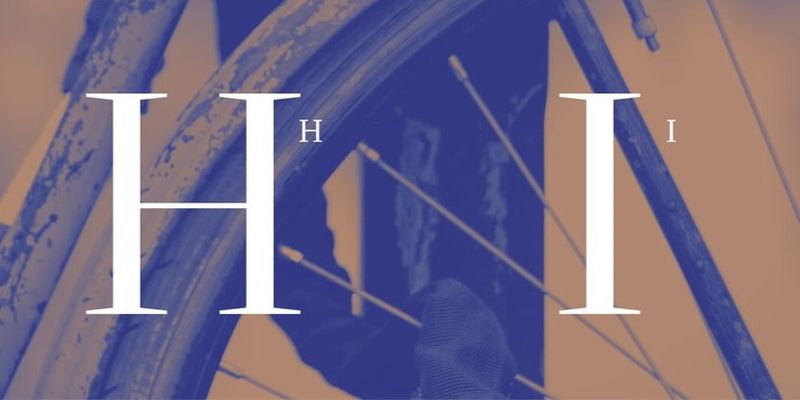
Quinn is a typeface for editorial design and publishing of all kinds. Although designer Diana Ovezea took cues from realist serif faces such as those of Johann Fleischmann, she imbued Quinn with enough personality to stand on its own in the modern age. The series consists of two optical sizes: Text in 10 styles for sizes between 6–24 points and Display in 14 styles for use above 24 points. This ample range facilitates complex typographic hierarchies and elaborate, varied layouts. Quinn includes an extensive set of elegant ligatures, symbols, figure types, and other OpenType features for flexible and feature-rich typesetting. Try it for everything from non-fiction and educational layouts to catalogs, branding campaigns, and poster design. Bold Monday, 2019.